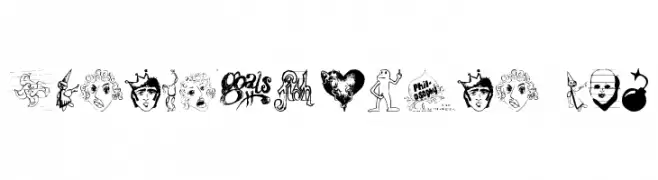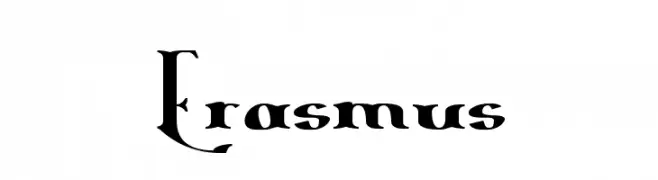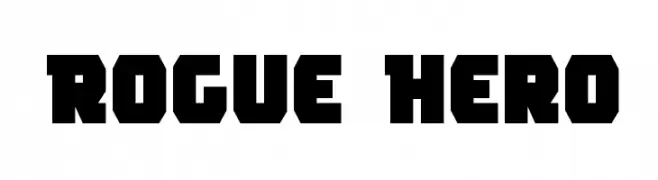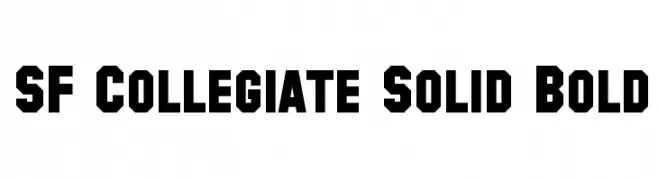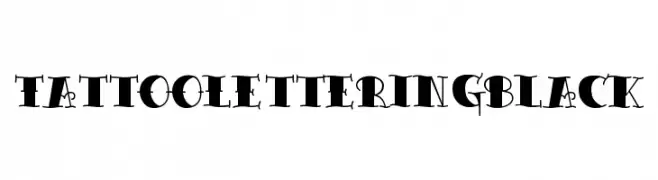
Silhouette map dingbat font with U.S. states and world regions.
A bold, decorative font with gothic and medieval influences.
Hand-drawn holiday-themed decorative illustrations.
A bold, collegiate-style font with strong, blocky characters and a solid presence.
An ornate mosaic-style font with detailed uppercase letters in square frames.
A bold, geometric font with strong, angular shapes and a modern-retro vibe.
A playful and chaotic dingbat font with diverse hand-drawn illustrations.
A bold, decorative font with intricate tattoo-like embellishments.